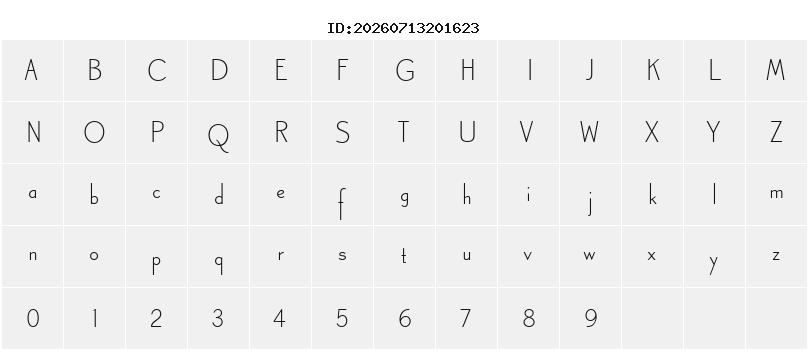
• Font Name: Canterbury Sans RR
• Font Style: Light
• Designer: Steve Jackaman
• Manufacturer: Rabbit Reproductions Typefoundry
About Canterbury Sans RR.ttf
Canterbury Sans RR.ttf is a modern, elegant sans-serif font designed for ultimate readability and visual harmony. Perfect for branding, headlines, web design, and print materials.